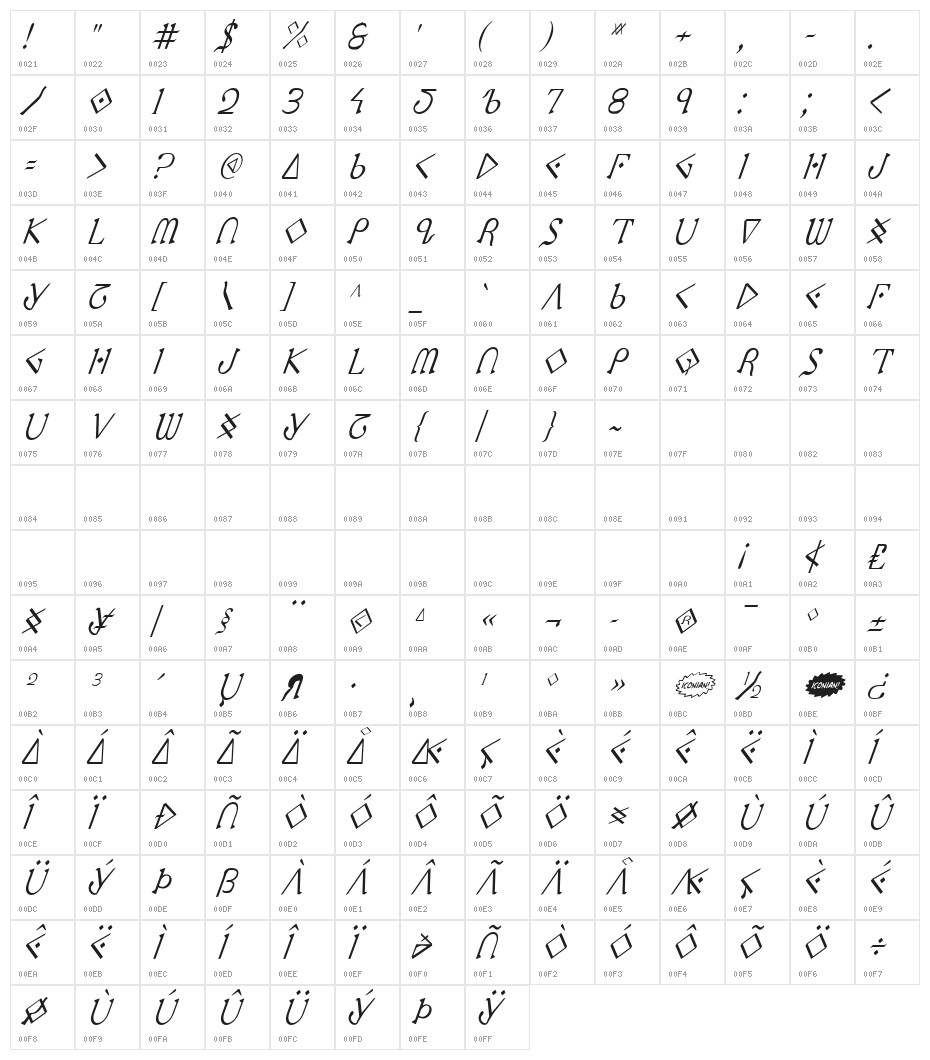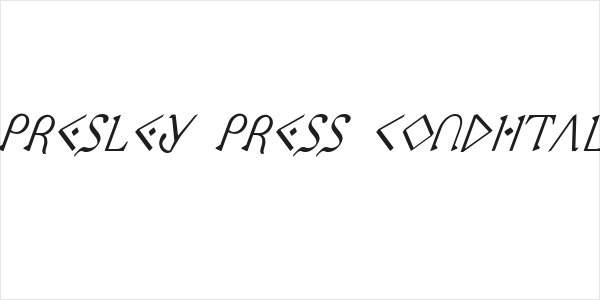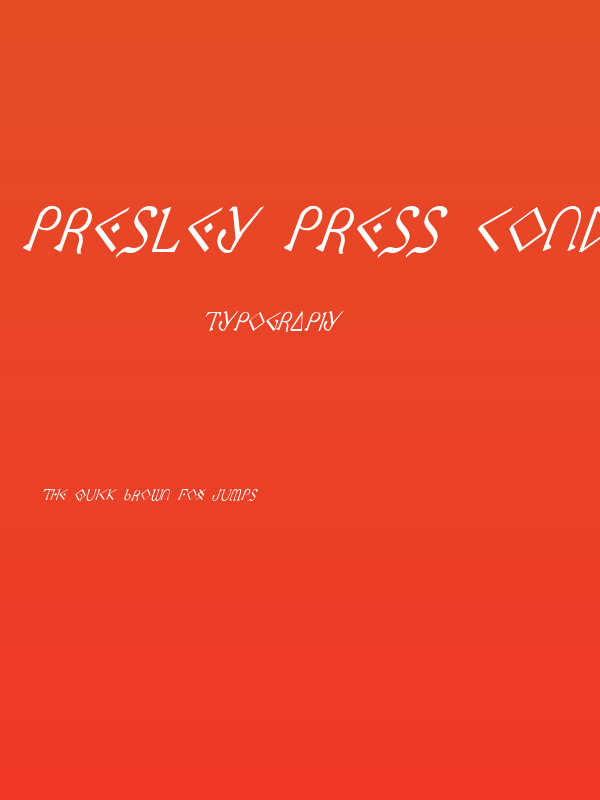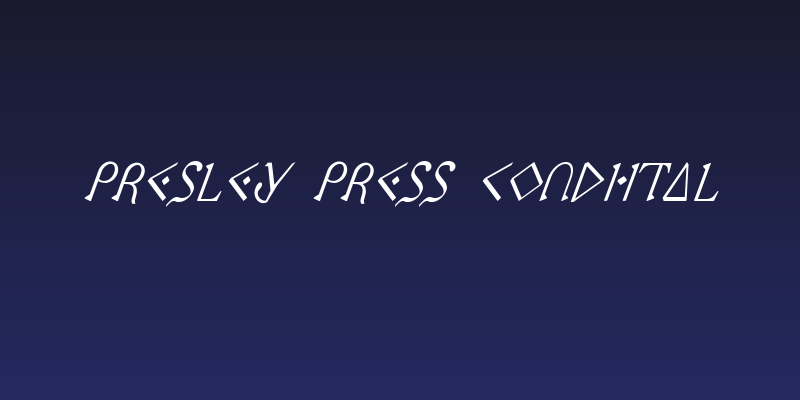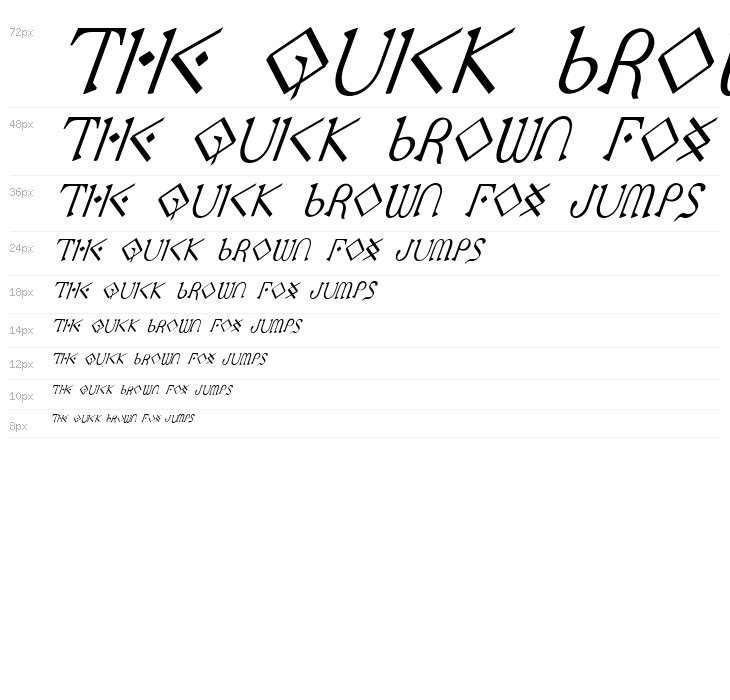
Presley Press CondItal Font
Presley Press CondItal Description
This font features a unique and artistic design with angular and geometric shapes, giving it a distinct and modern appearance. The characters are slightly condensed, with a consistent slant that adds a dynamic and italicized feel. The strokes are bold and have a medium contrast, with some characters incorporating decorative elements that enhance the overall style. The numbers and special characters maintain the same angular and stylized approach, ensuring consistency across the font. This font is suitable for creative projects that require a bold and unconventional look.
| Proposed Projects | Ideal for branding, posters, album covers, and any project that requires a striking and modern typeface. |